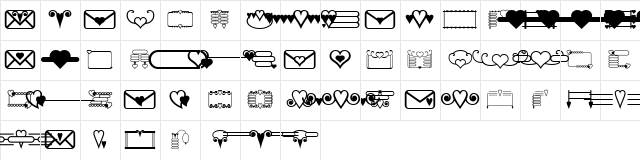
WE_I Love You Regular Free Font
WE_I Love You Regular
Complete WE_I Love You Regular glyph index. Displaying only characters natively supported by WE_I Love You Regular font.
Design Context for WE_I Love You
WE_I Love You is a composed and adaptable typeface that performs quietly and consistently across a wide range of design contexts.